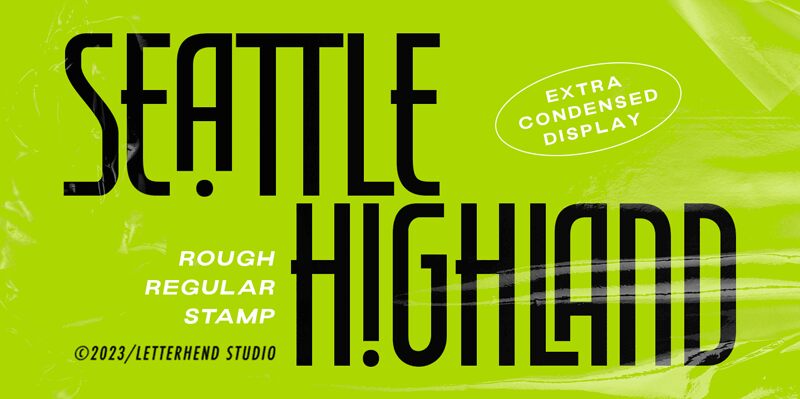
Seattle Highland font, a striking display typeface designed by Letterhend Studio, captures the essence of retro aesthetics with its bold character. This condensed font boasts a unique visual appeal, emphasizing sharp lines and an impactful presence that draws the eye.
Its distinctive style makes it perfect for a variety of design contexts. Whether you’re crafting vibrant posters, eye-catching logos, or nostalgic branding elements, Seattle Highland brings an energetic flair to your projects. Ideal for headlines or any design where attention must be captured swiftly, this font's dynamic form elevates messages while maintaining an effortlessly stylish charm. Consider Seattle Highland for any creative venture that seeks to blend modernity with retro flair!